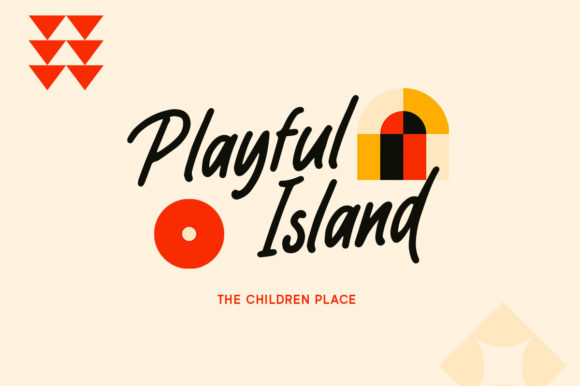
Point Smile Font
db-ku.com - Script & Handwritten -- Point Smile is a clean, adaptable and vintage styled script font. This typeface is perfectly made to be applied on headlines, logotypes, apparel, invitations, branding, packaging, wedding card, advertising and more.